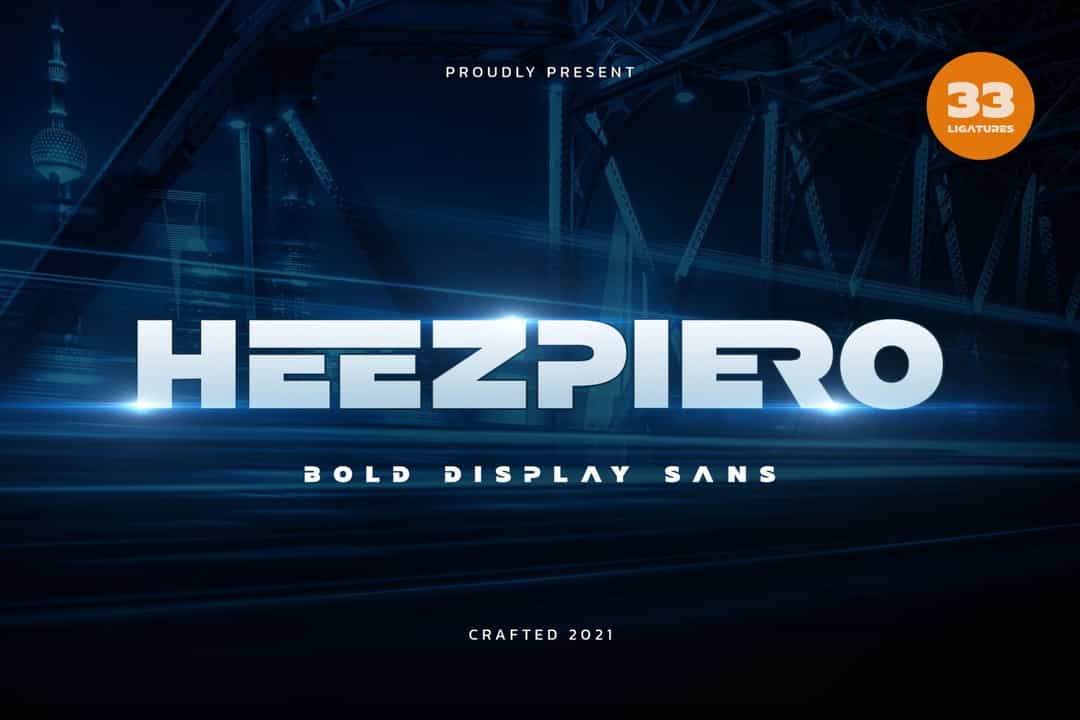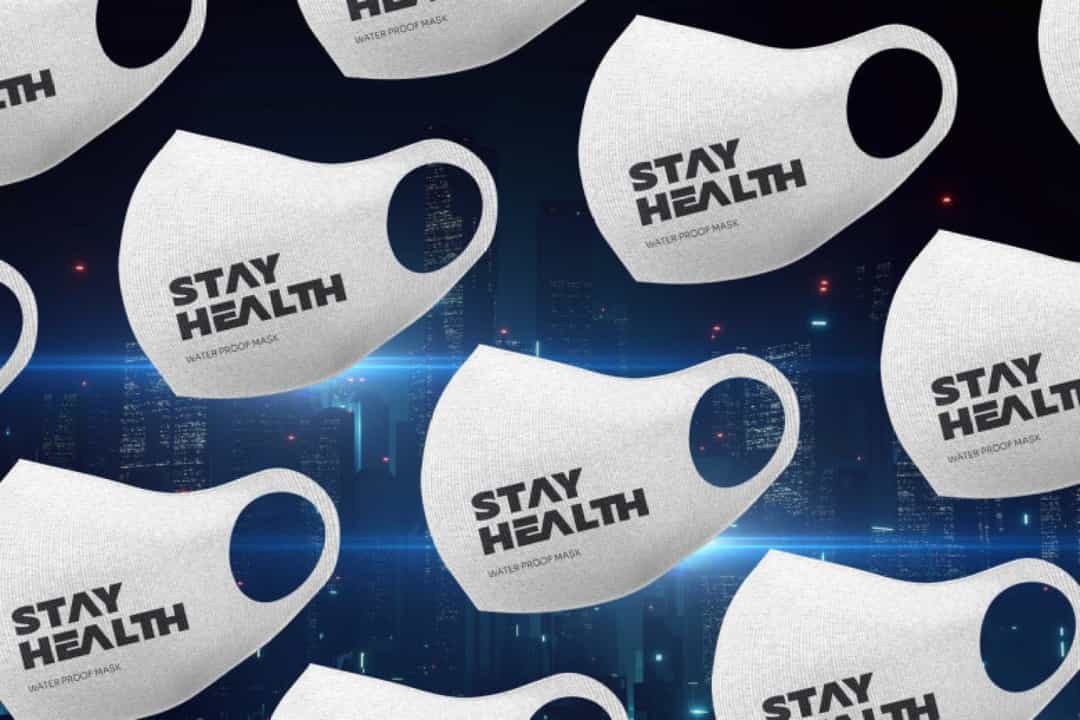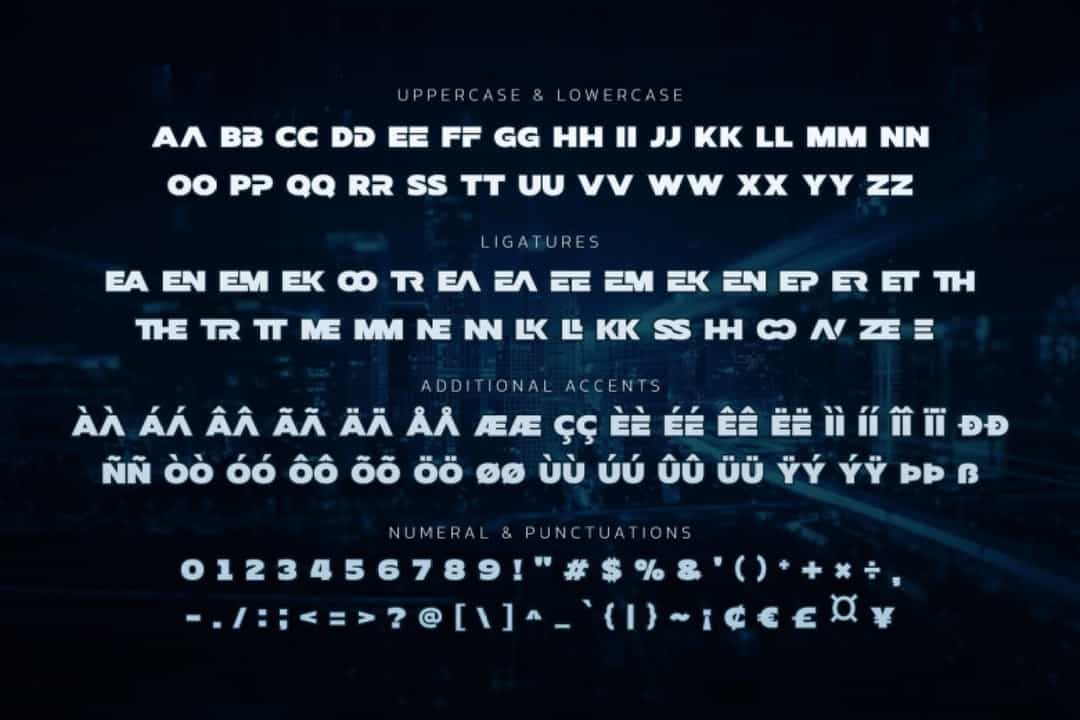
Heezpiero is a beautiful and professional design typeface. Great for headlines, poster, subheadings, display styles, branding logos and many more, this professional typeface is encoded in such a way that all the characters and strokes can easily be retrieved!